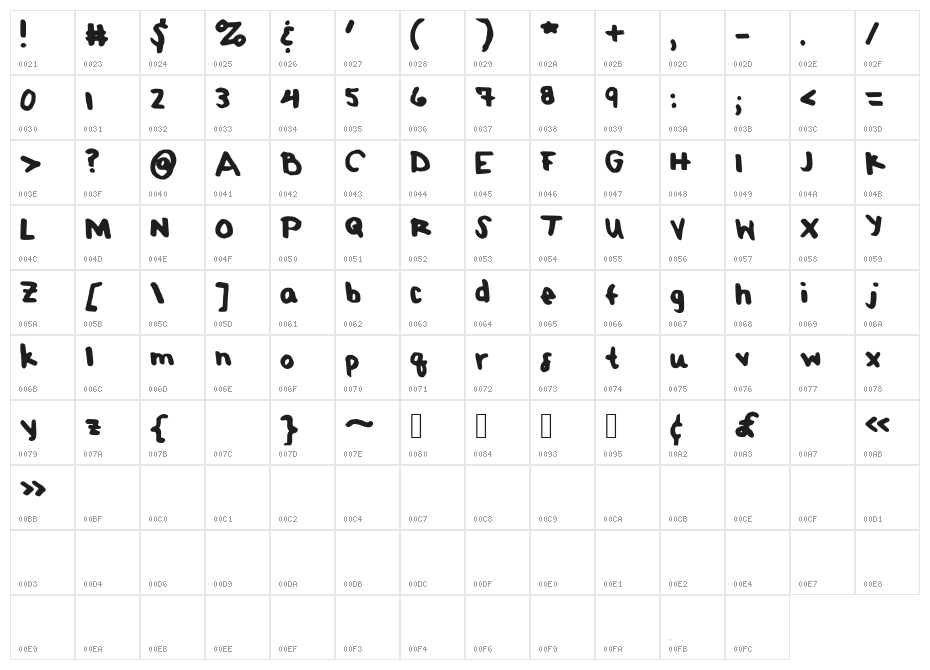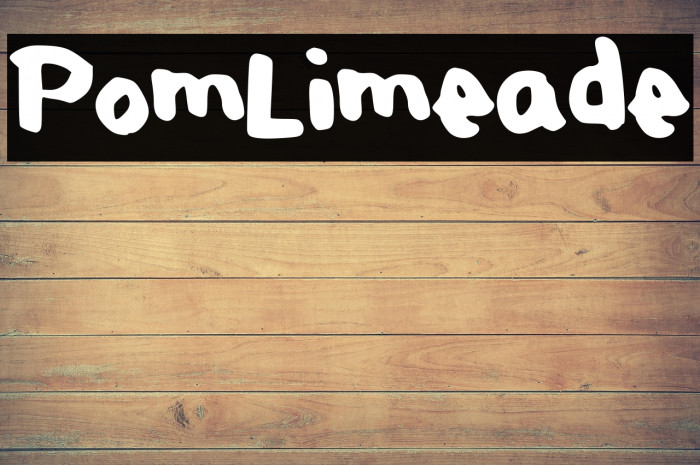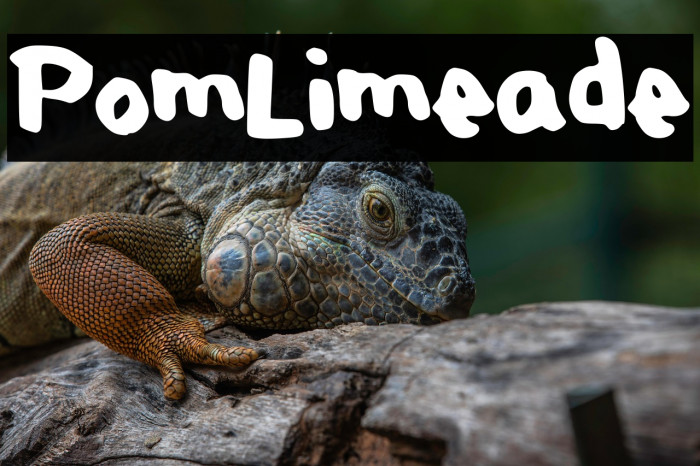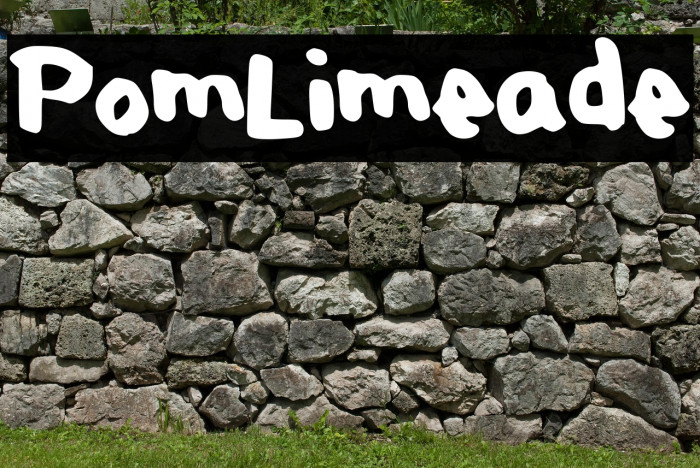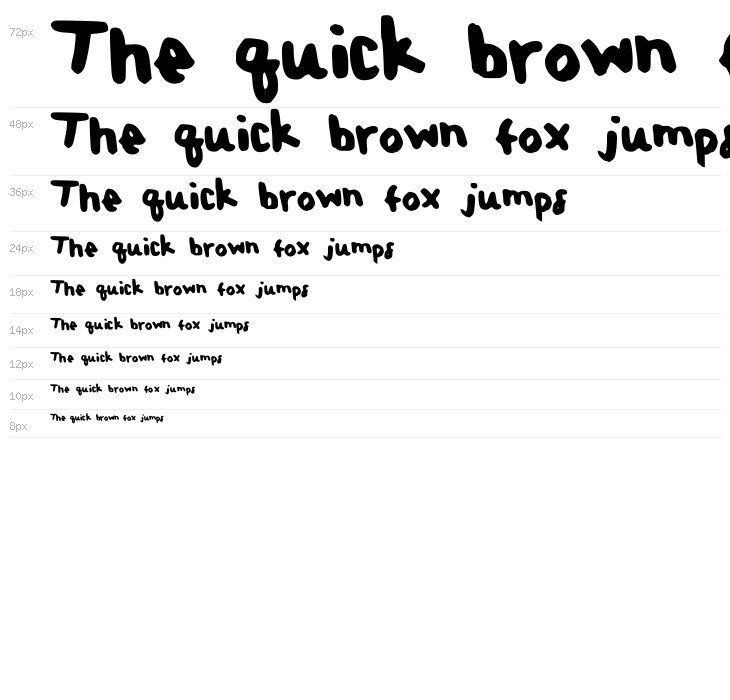
PomLimeade Font
PomLimeade Description
This playful and bold font features a handwritten style with a casual and informal appearance. The letters are rounded and slightly irregular, giving them a whimsical and friendly look. The strokes are thick and consistent, providing a strong presence on the page. The font includes both uppercase and lowercase letters, numbers, and a variety of special characters. Its unique style makes it stand out, perfect for creative projects that require a personal touch.
| Proposed Projects | Ideal for children's books, playful branding, greeting cards, and casual invitations. |